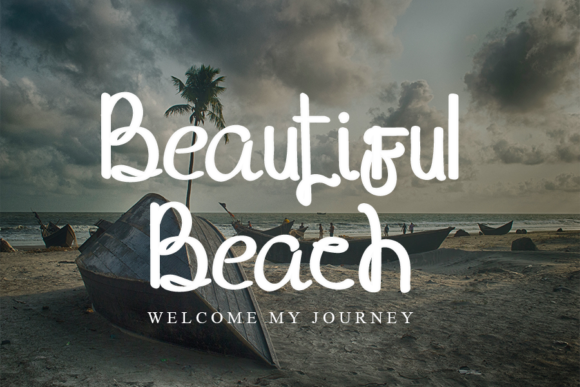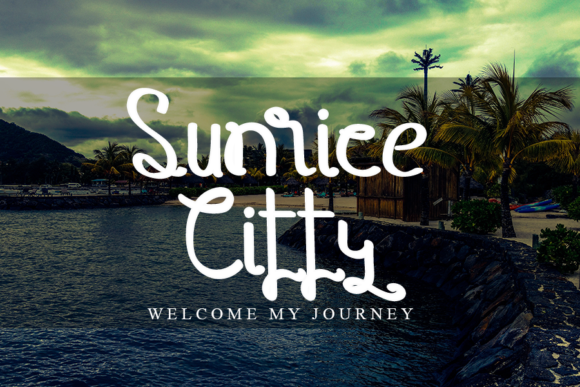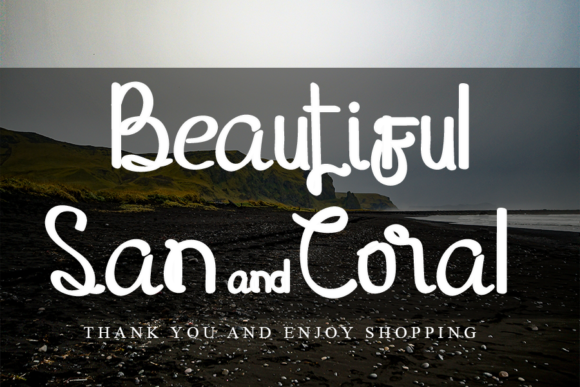
Bangladesh Font
About Bangladesh Font
Bangladesh is a unique and cute font. It features bouncy characters that make it the perfect font for creating outstanding crafting projects!